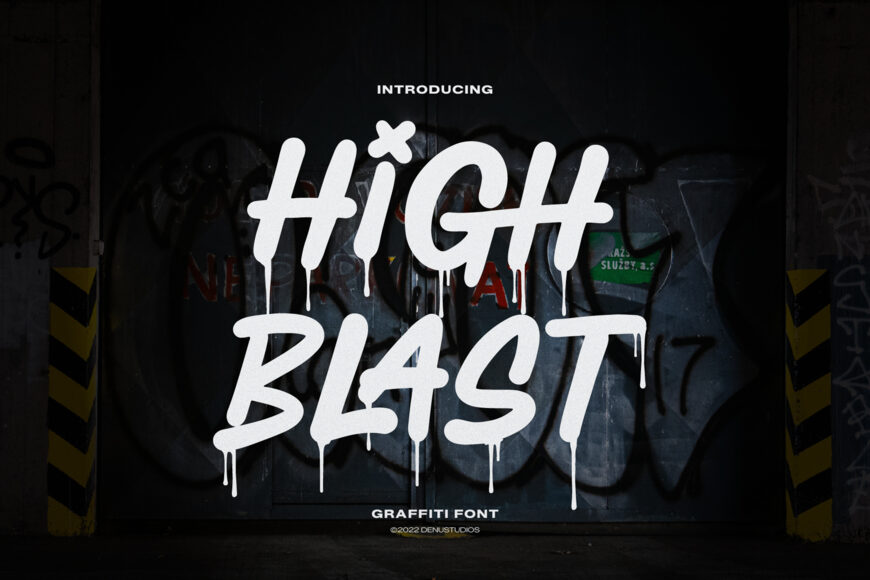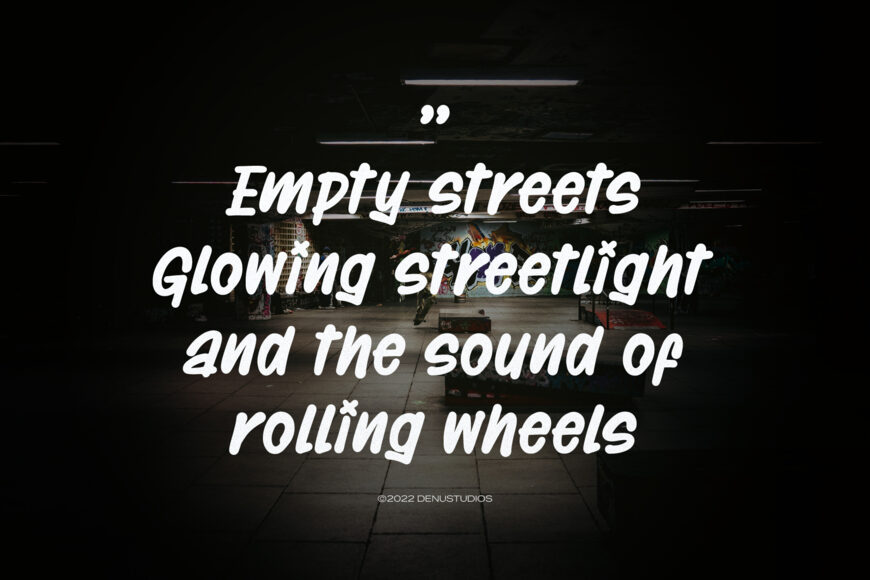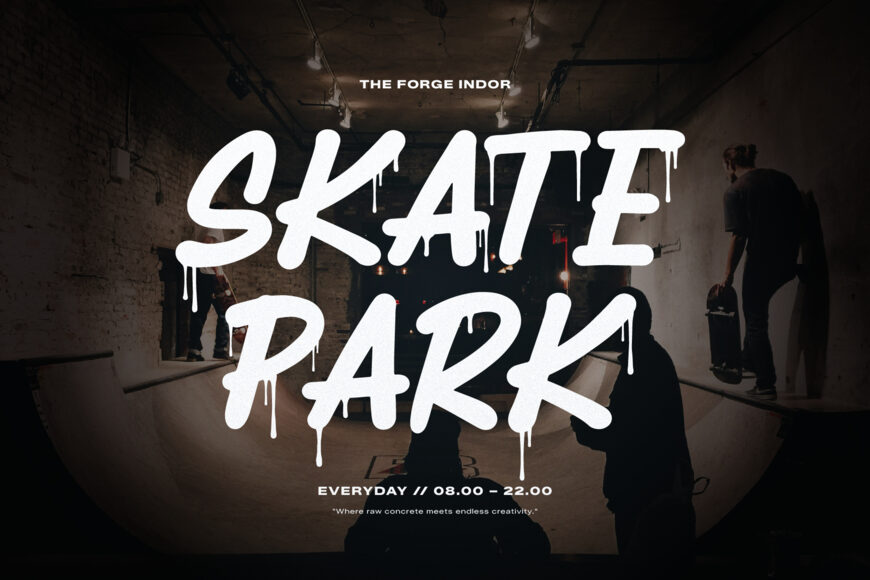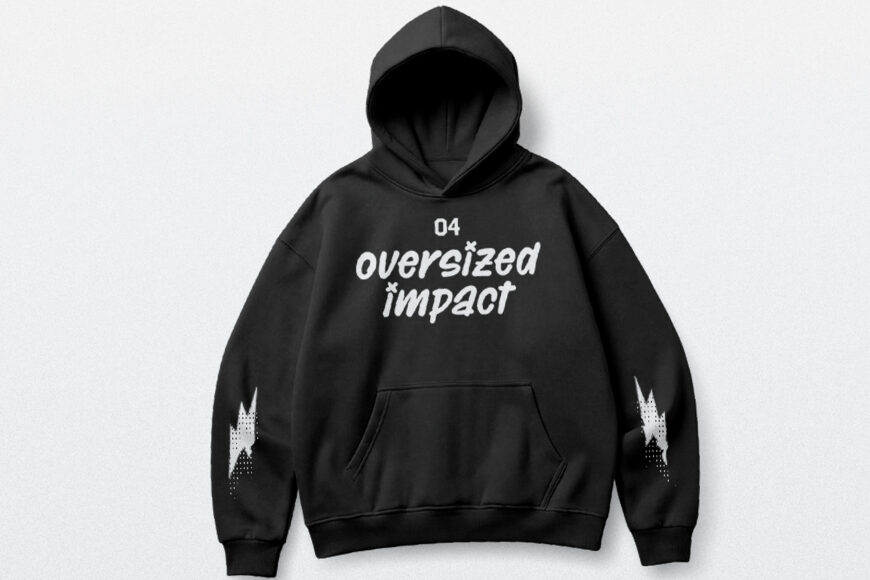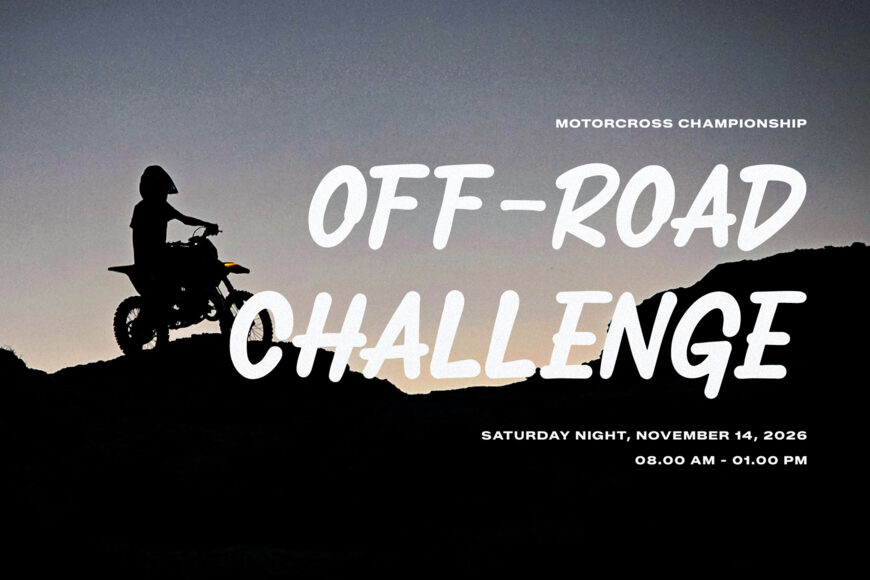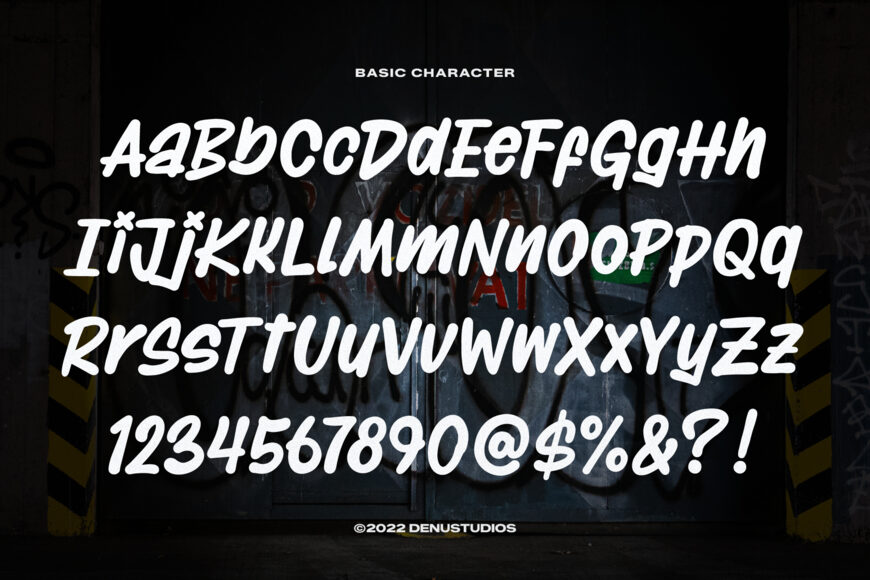
High Blast Font is a bold graffiti-inspired typeface with a raw, energetic street-art style. Featuring hand-drawn character shapes, alternates, and ligatures, it brings an authentic urban feel to logos, posters, apparel, packaging, album covers, and branding. Its expressive lettering works especially well for hip-hop, skate, streetwear, and creative projects that need a rebellious, handcrafted personality.